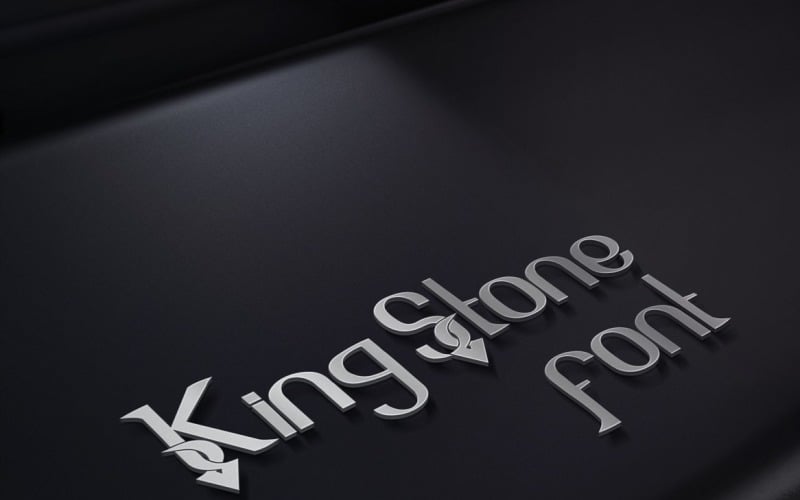
King Stone Font Cool Display
An elegant font exudes sophistication, grace, and a refined aesthetic. It typically features delicate, flowing lines, and balanced proportions. Perfect for websites, apps, branding, and print media, Neofuturistic Sans is designed to make your text stand out with sophistication and forward-thinking style. Its versatility makes it suitable for headlines, body text, and everything in between.